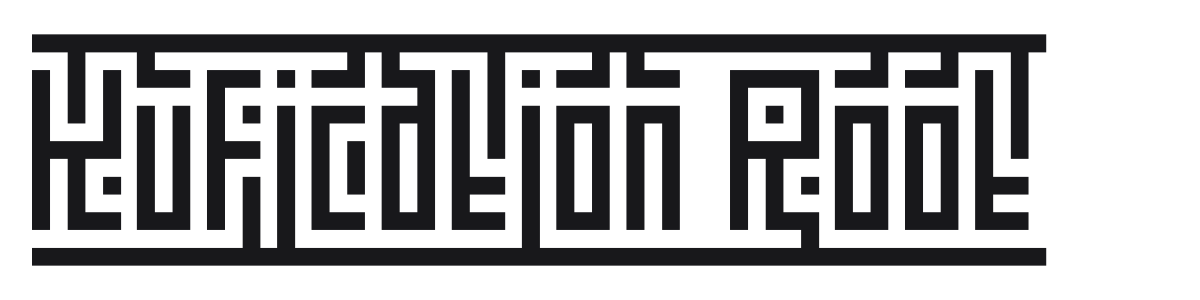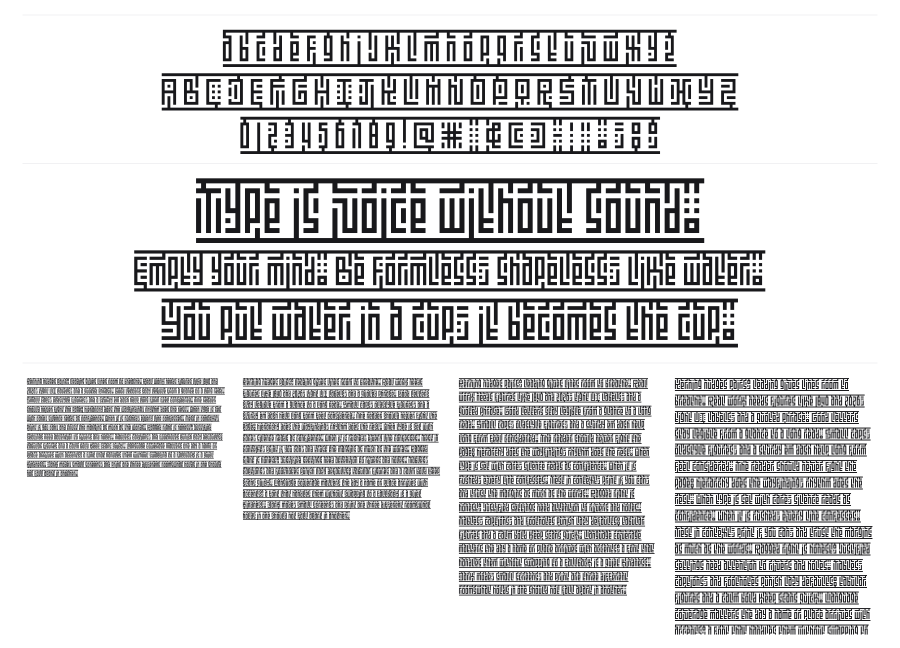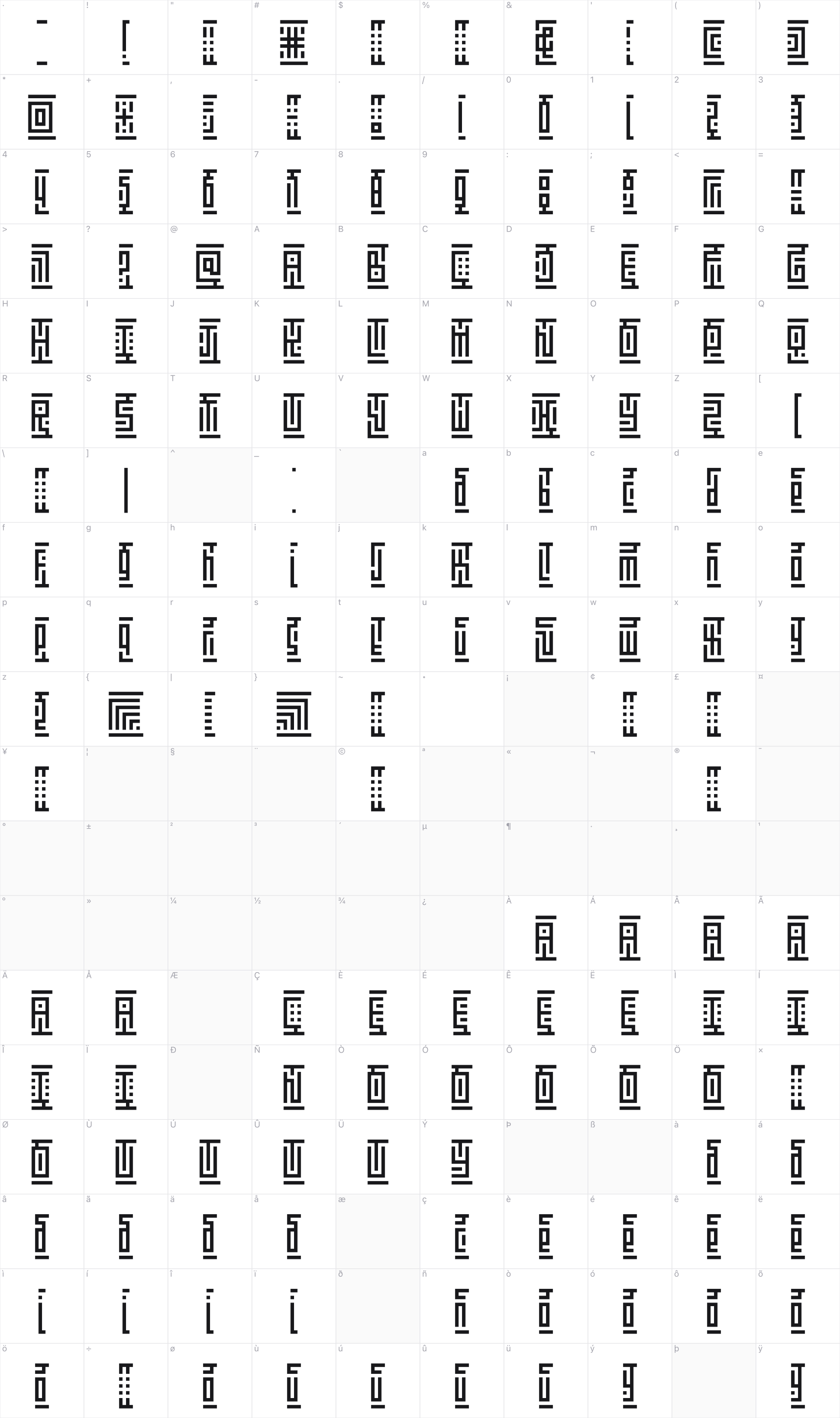
Kufication Root
Kufication Root is a Latin display font built entirely from right-angle geometric segments inspired by Kufic Arabic calligraphy. Every character is constructed on a strict square grid, creating a dense, maze-like rhythm that reads as both architectural ornament and cultural statement. It carries a strong graphic weight that commands attention at headline or poster sizes.